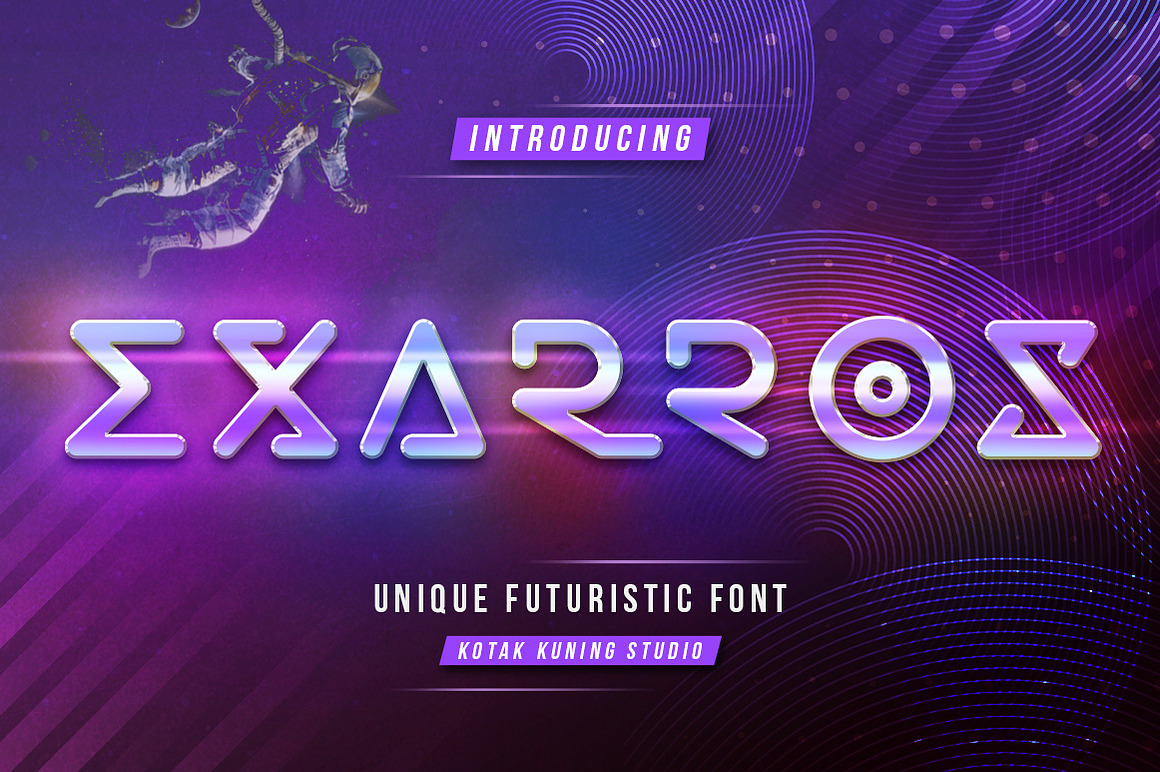
Exarros Font
Exarros Font is perfect for contemporary design agencies, innovative tech startups, modern architectural firms, cutting-edge product design companies, progressive creative studios, and forward-thinking brand consultancies. Its distinctive character makes it ideal for experimental art galleries, avant-garde fashion brands, futuristic technology platforms, creative innovation labs, modern digital agencies, and any project requiring design excellence with contemporary sophistication and innovative creative appeal.
This font is exciting because it pushes the boundaries of traditional typography while maintaining exceptional readability and professional functionality for organizations at the forefront of design innovation and creative excellence. The uniquely crafted letterforms demonstrate bold design thinking and artistic courage, creating typography that stands out in competitive markets while communicating sophistication, creativity, and forward-thinking vision that resonates with design-conscious audiences.
The Exarros Font family typically includes Light, Regular, Medium, and Bold weights with innovative alternates, creative ligatures, and distinctive elements that enhance its contemporary personality. This comprehensive collection enables creative professionals to develop memorable brand systems that maintain design credibility while offering flexibility for various innovative applications requiring both artistic expression and contemporary professional positioning.
Whether you're developing identity systems for design studios, creating materials for creative conferences, or designing promotional content for innovative technology brands, Exarros Font Free Download delivers the creative sophistication and innovative appeal that connects with audiences seeking cutting-edge design solutions and contemporary excellence. Its distinctive presence ensures memorable brand recognition across digital platforms and print materials, making it perfect for websites, mobile applications, and creative campaigns that celebrate design innovation, artistic vision, and the transformative power of contemporary typography with professional excellence and authentic creative distinction.